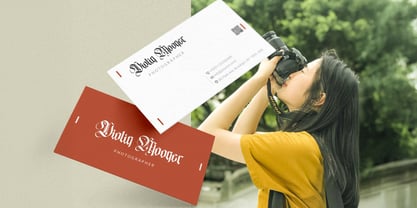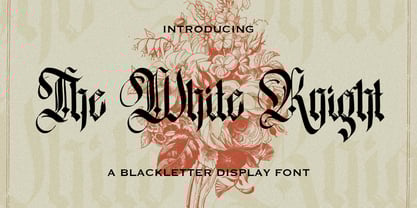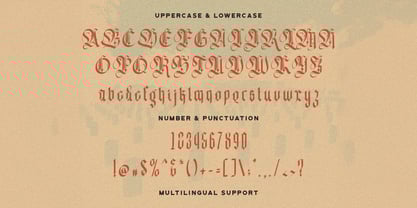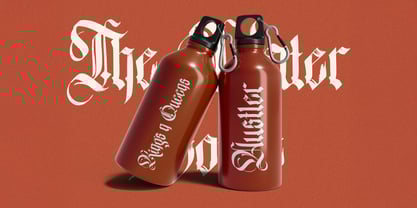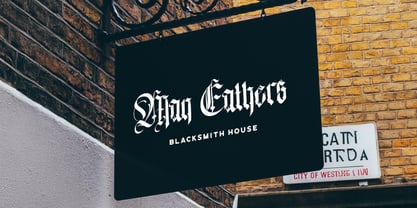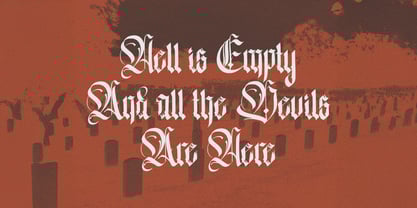
The White Knight
by Stringlabs Creative Studio
The The White Knight Font Family was designed by Virgiawan Listanto and published by Stringlabs Creative Studio. The White Knight contains 1 styles. More about this family
The White Knight is a striking blackletter font that captures the bold, medieval essence of traditional Gothic typefaces with a modern refinement. Its sharp angles, strong strokes, and intricate details give it a powerful presence, making it ideal for branding, posters, tattoos, apparel, book covers, and music artwork. With its dramatic and timeless character, The White Knight brings a sense of strength, elegance, and heritage to any creative project.
Designers: Virgiawan Listanto
Foundry: Stringlabs Creative Studio